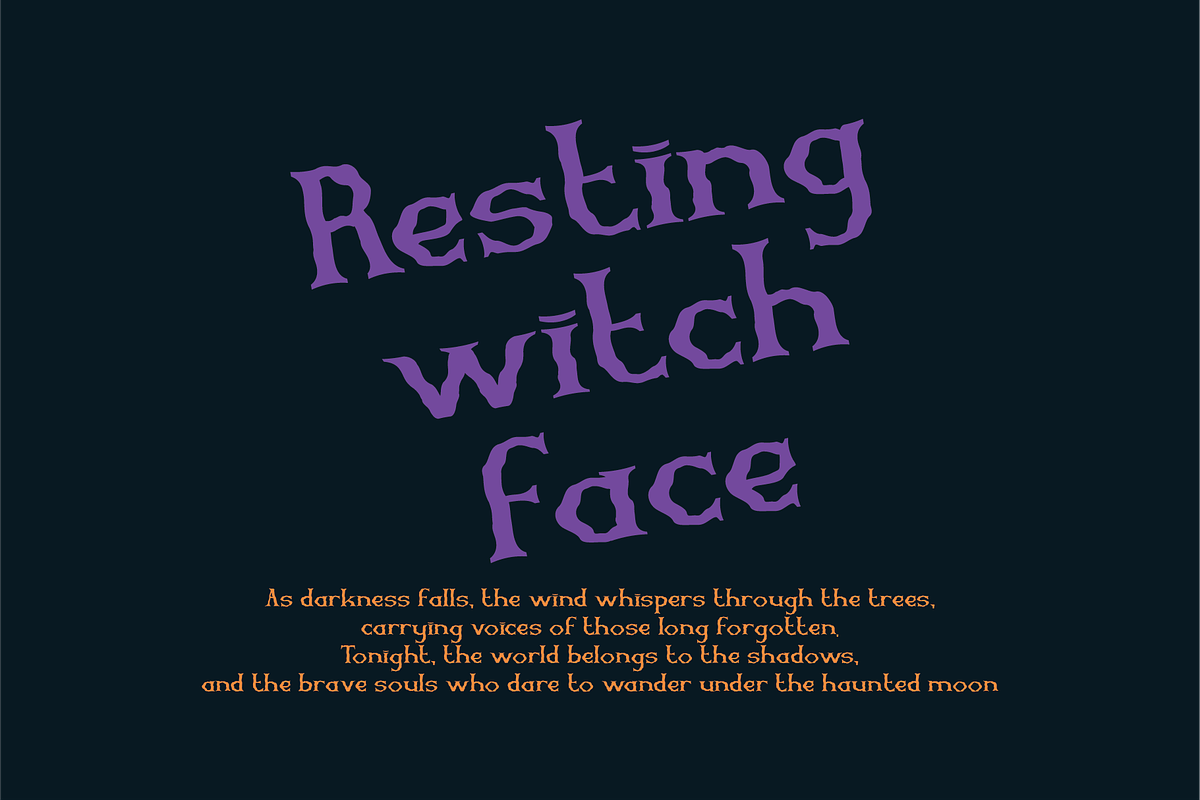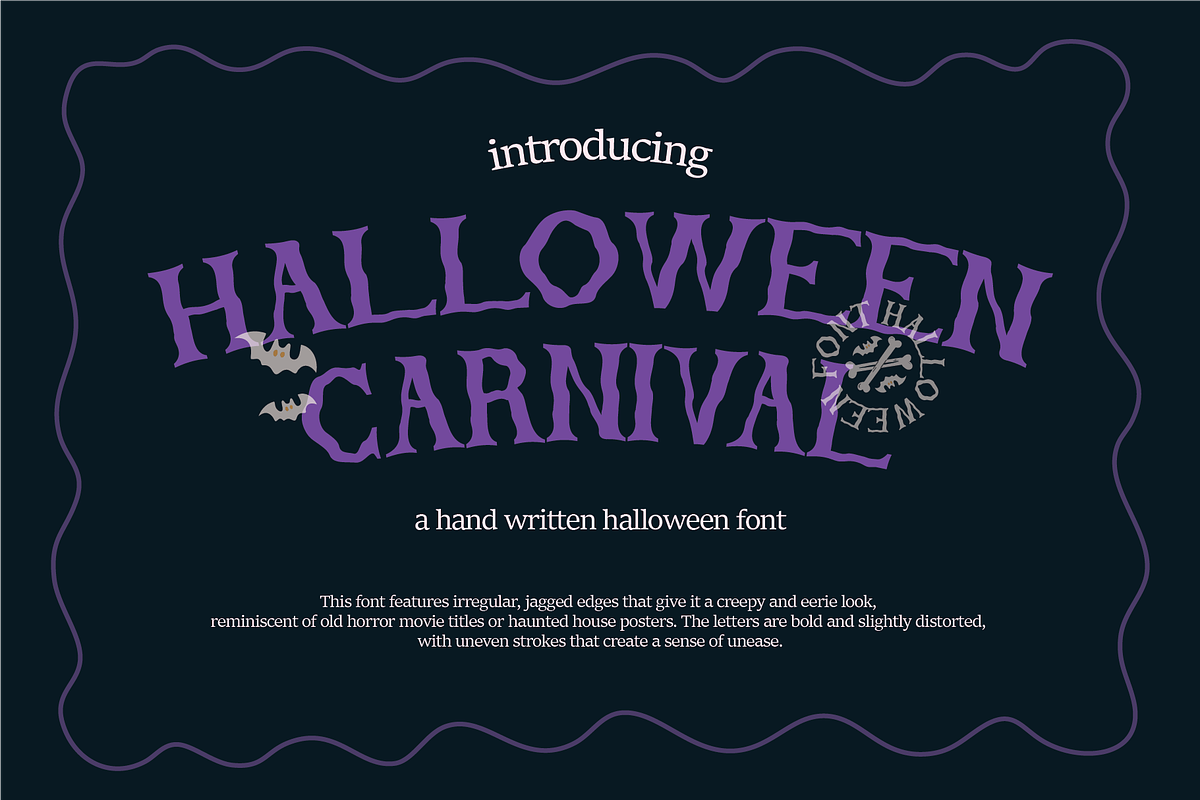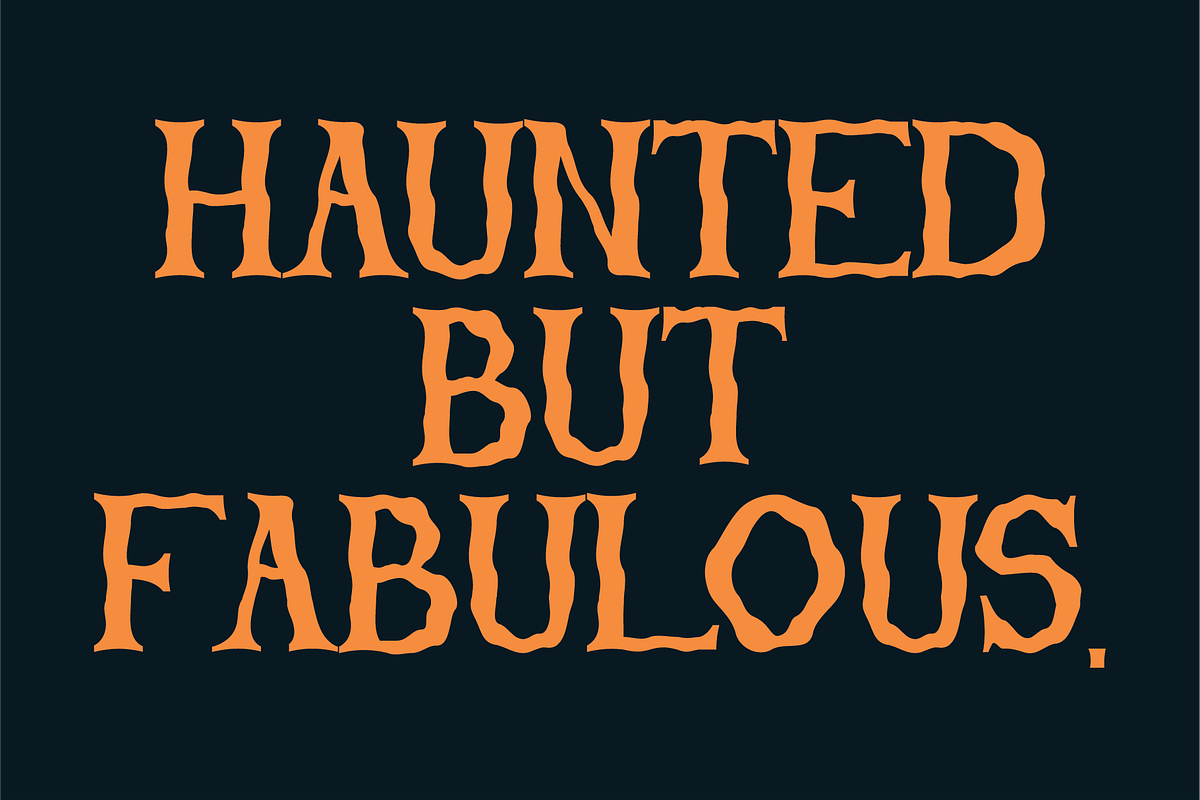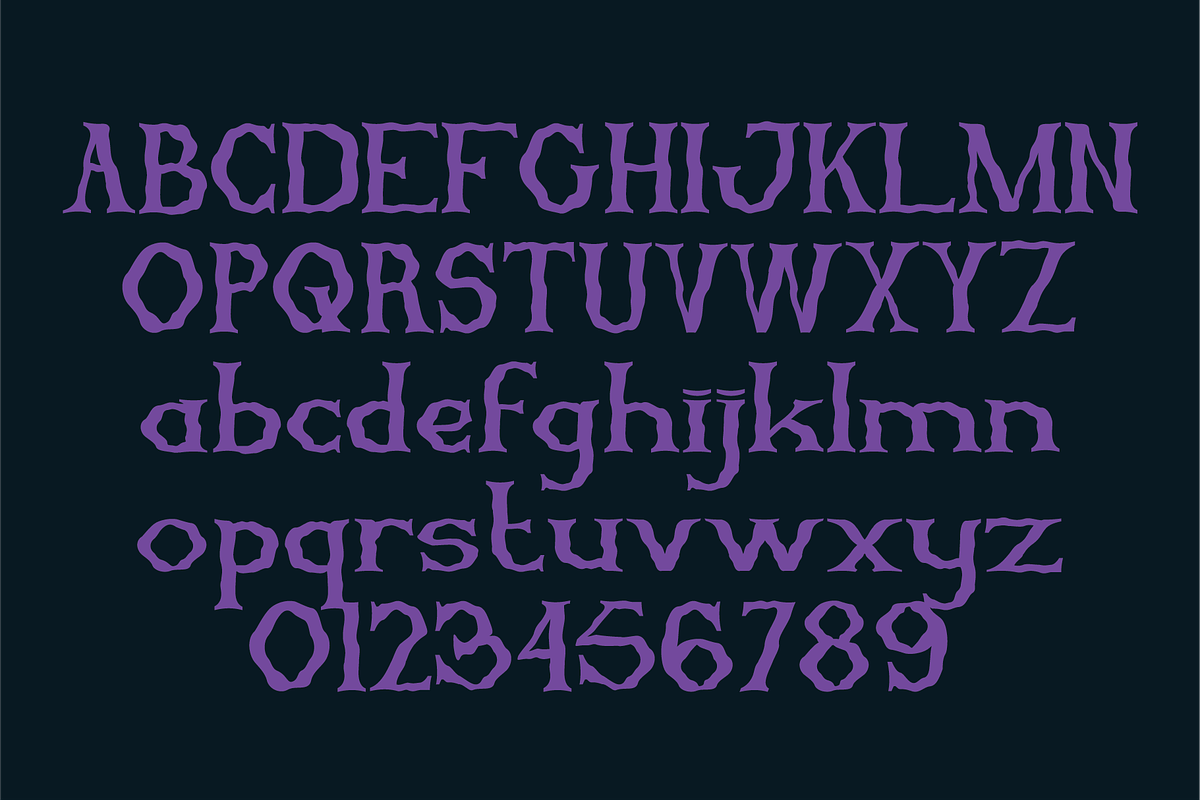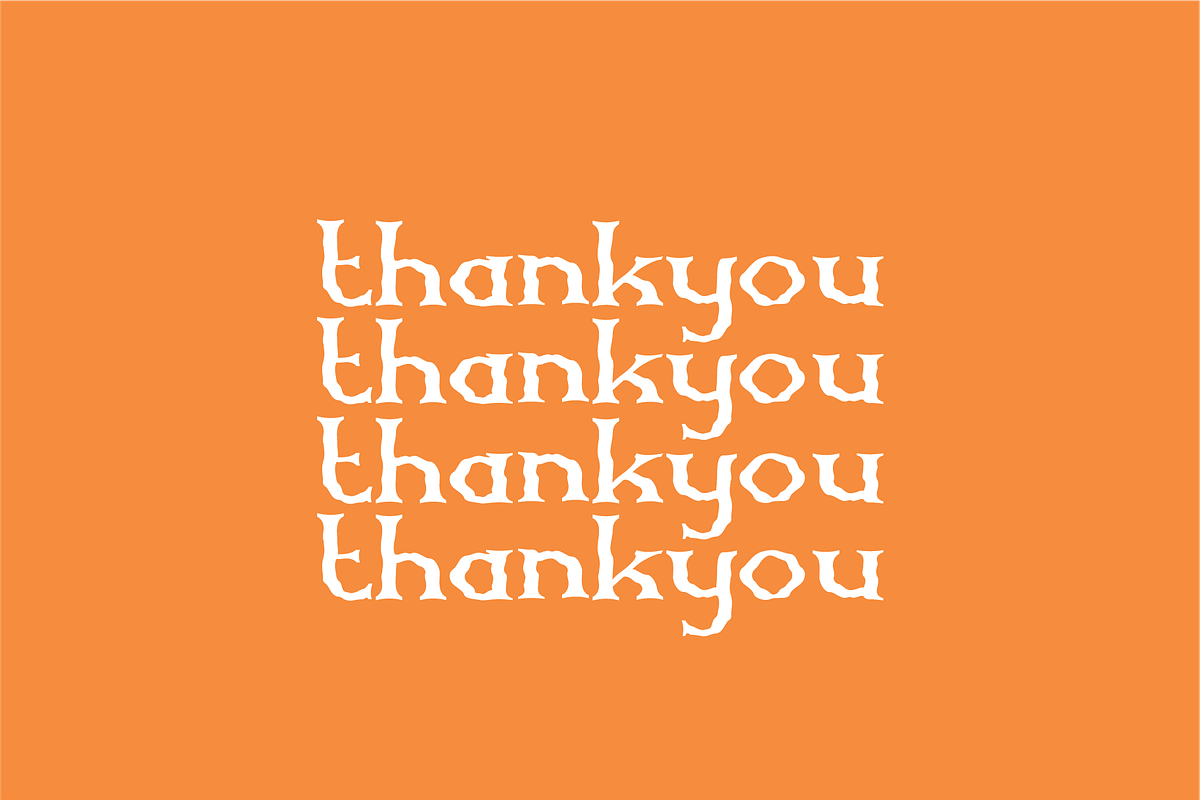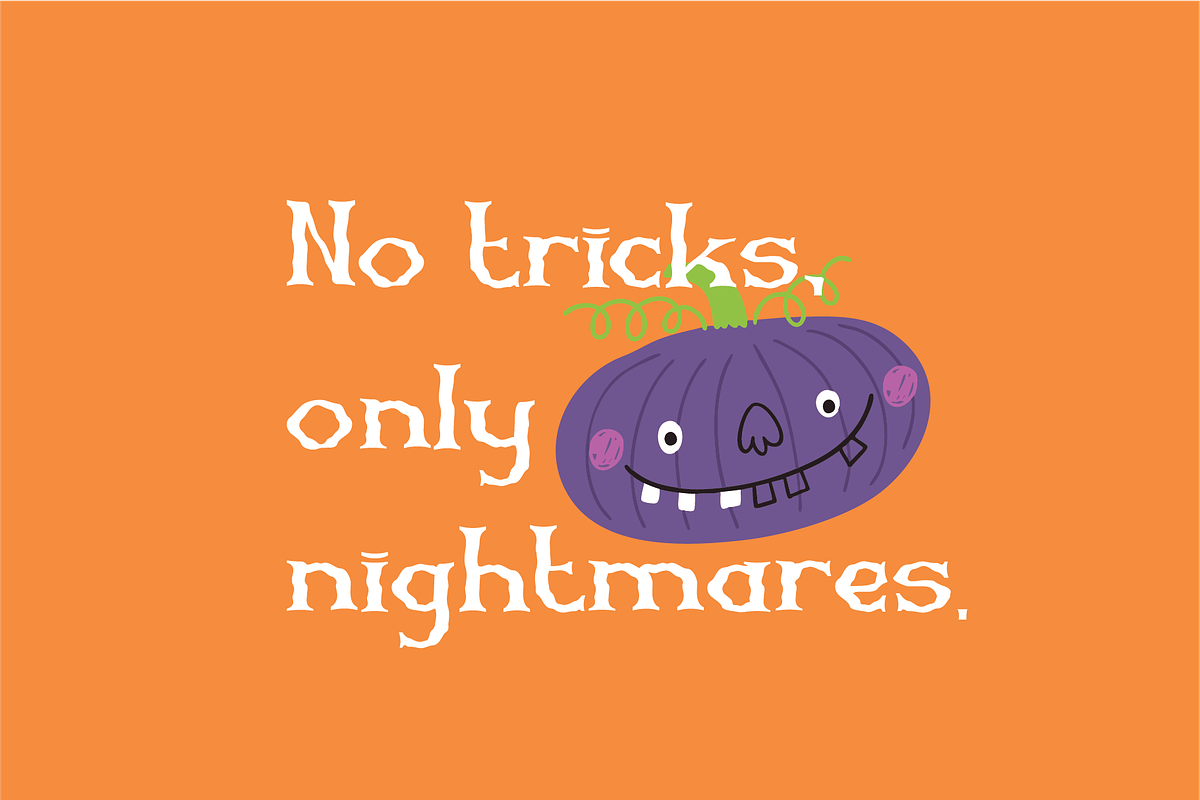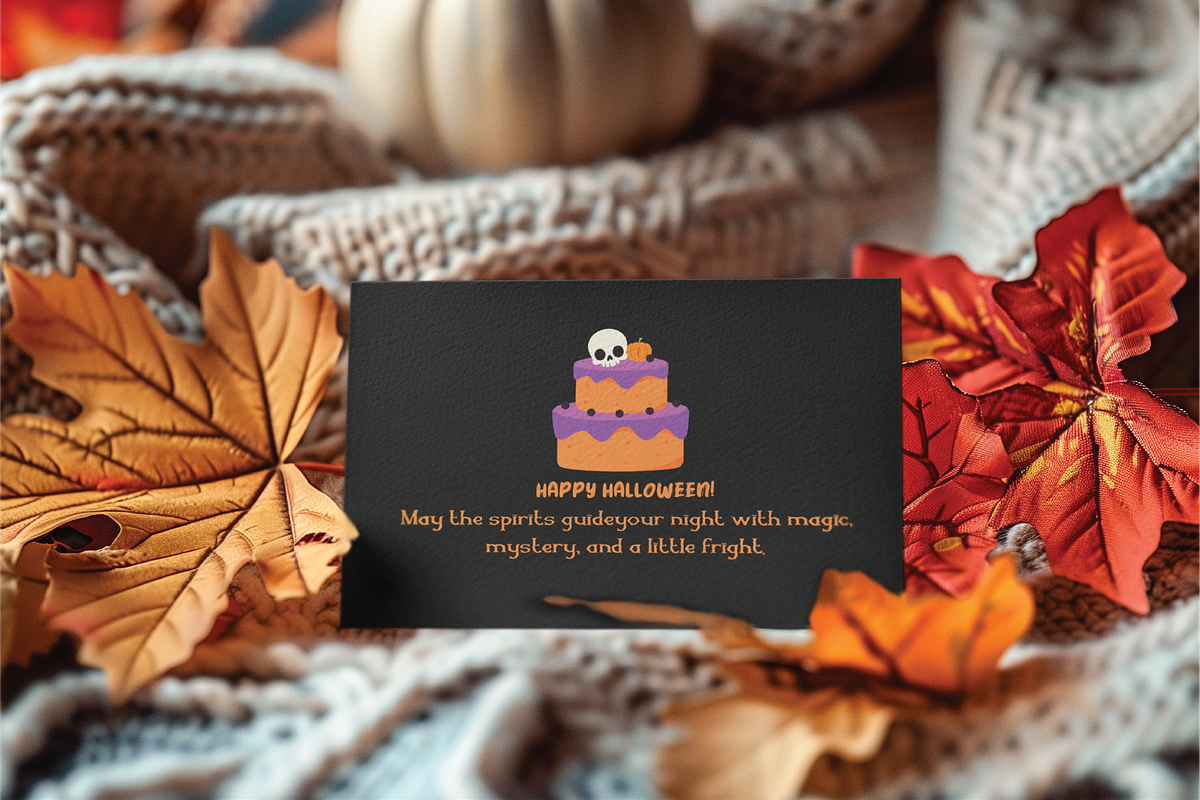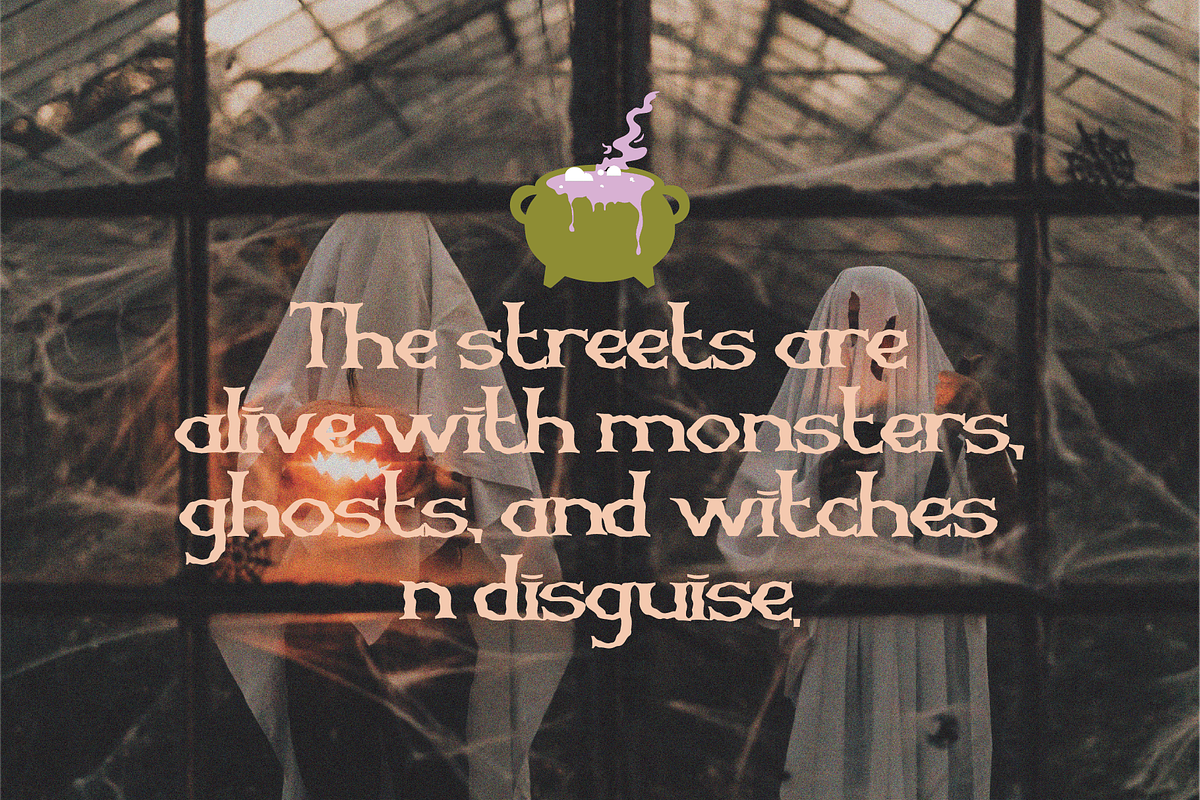
Halloween Carnival | Halloween Font
Halloween Carnival This font features irregular, jagged edges that give it a creepy and eerie look, reminiscent of old horror movie titles or haunted house posters. The letters are bold and slightly distorted, with uneven strokes that create a sense of unease. The uneven outlines make the text appear as if it’s melting, torn, or decayed, enhancing the scary, festive atmosphere.